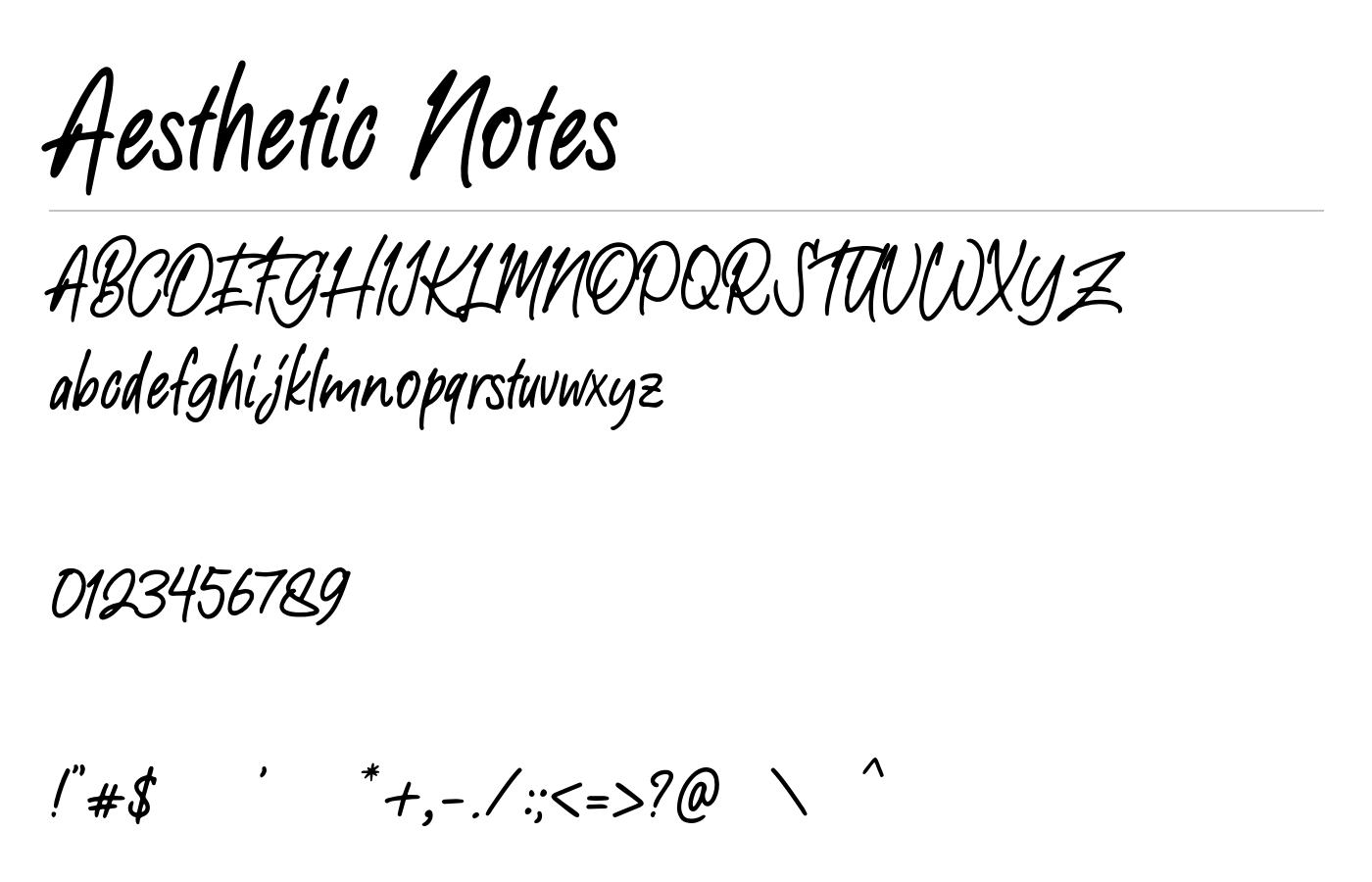
Aesthetic Notes is a casual, handwritten script font with a lively and flowing style that feels personal and approachable. Its medium weight and slightly condensed letterforms with smooth, rounded strokes make it perfect for adding a friendly, informal touch to invitations, personal branding, and creative projects. This font works well for designs that want to convey warmth, creativity, and a natural, handwritten charm.
Aesthetic Notes Font
About Aesthetic Notes Font